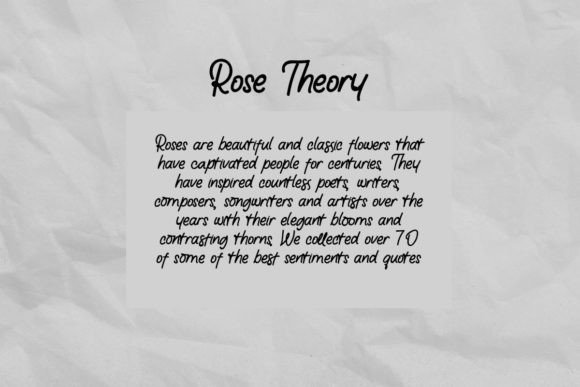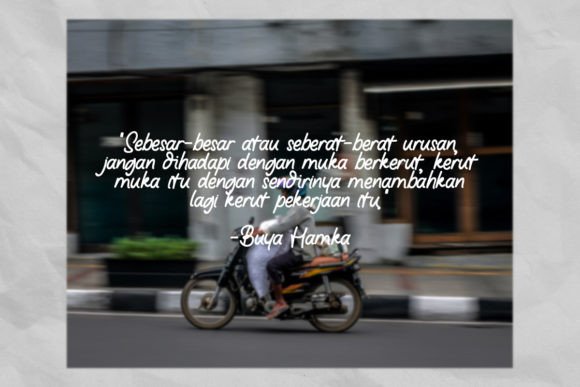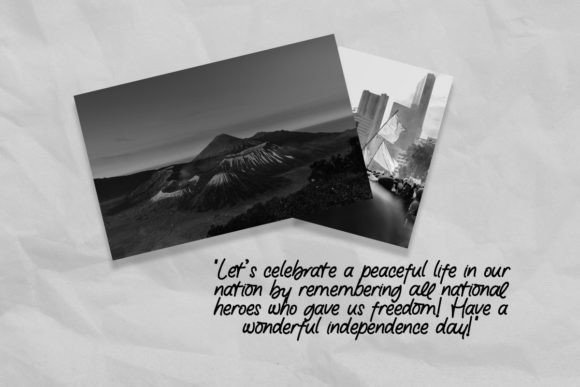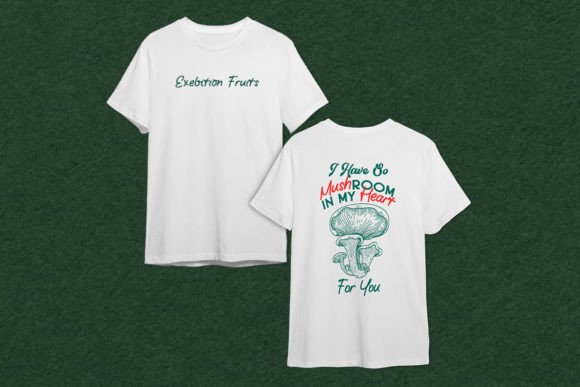
Introduction to Modyste Font
Modyste is a handwritten script font.
Key Features of Modyste Font
Why Choose Modyste Font?
Modyste Font offers exceptional quality and versatility, making it a valuable addition to your design toolkit. Whether you’re creating for personal projects or commercial use, Modyste Font delivers professional results.